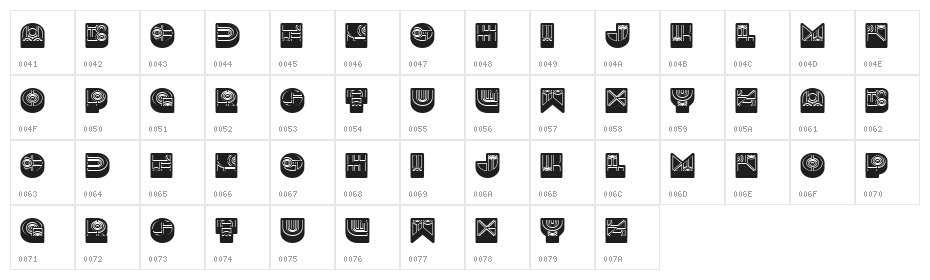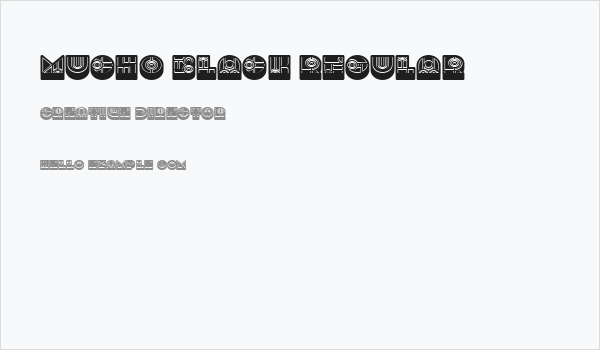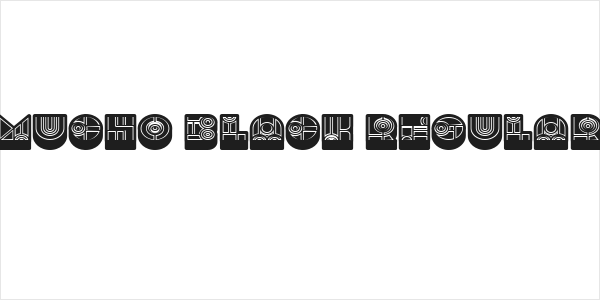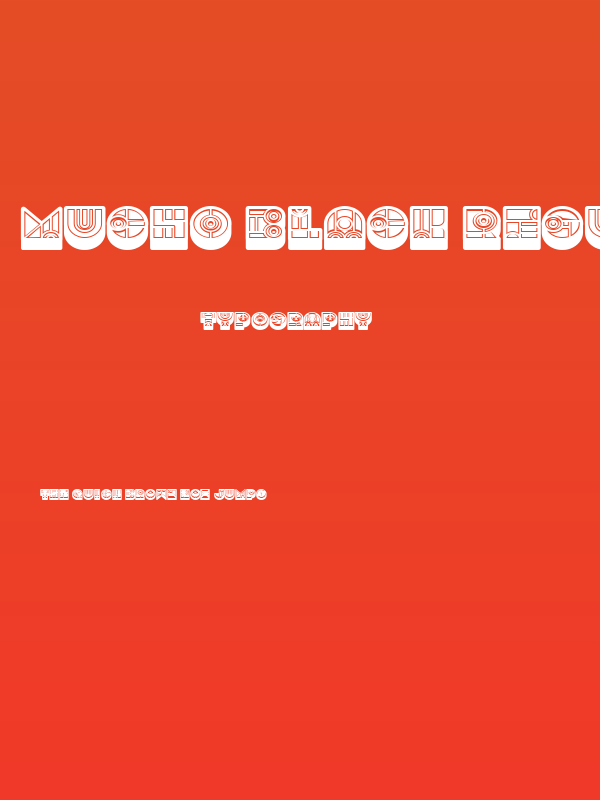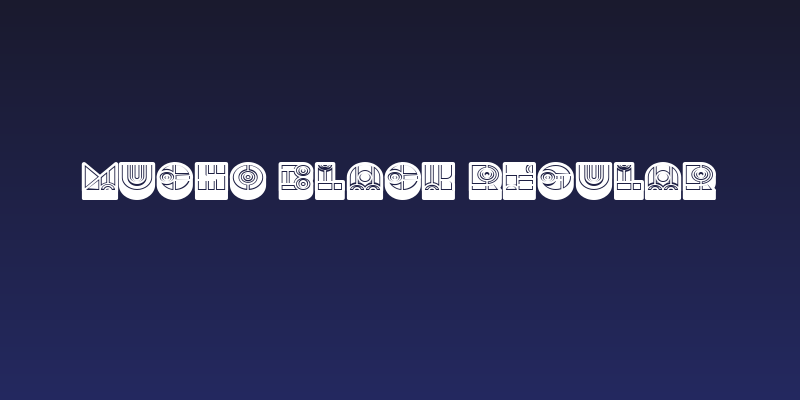
Mucho Black Regular Font
Mucho Black Regular Description
This font features a bold and geometric design with intricate line patterns inside each character. The letters are enclosed in solid, block-like shapes, creating a strong and impactful visual presence. The use of lines and shapes within the characters adds a decorative and artistic flair, making it stand out as a display font. The overall appearance is modern and abstract, with a sense of symmetry and balance in the design. The font's unique style makes it suitable for creative and artistic projects where a bold statement is desired.
| Overall Style | Modern, Abstract, Artistic |
| Proposed Projects | Ideal for posters, album covers, branding, and any project requiring a bold, artistic touch. |